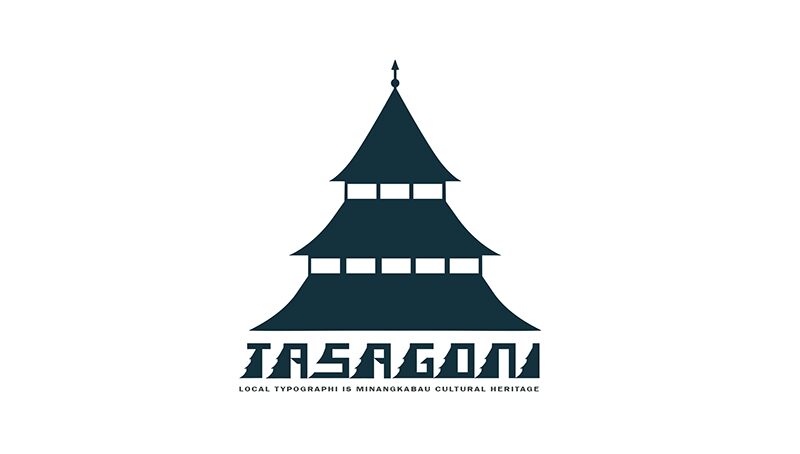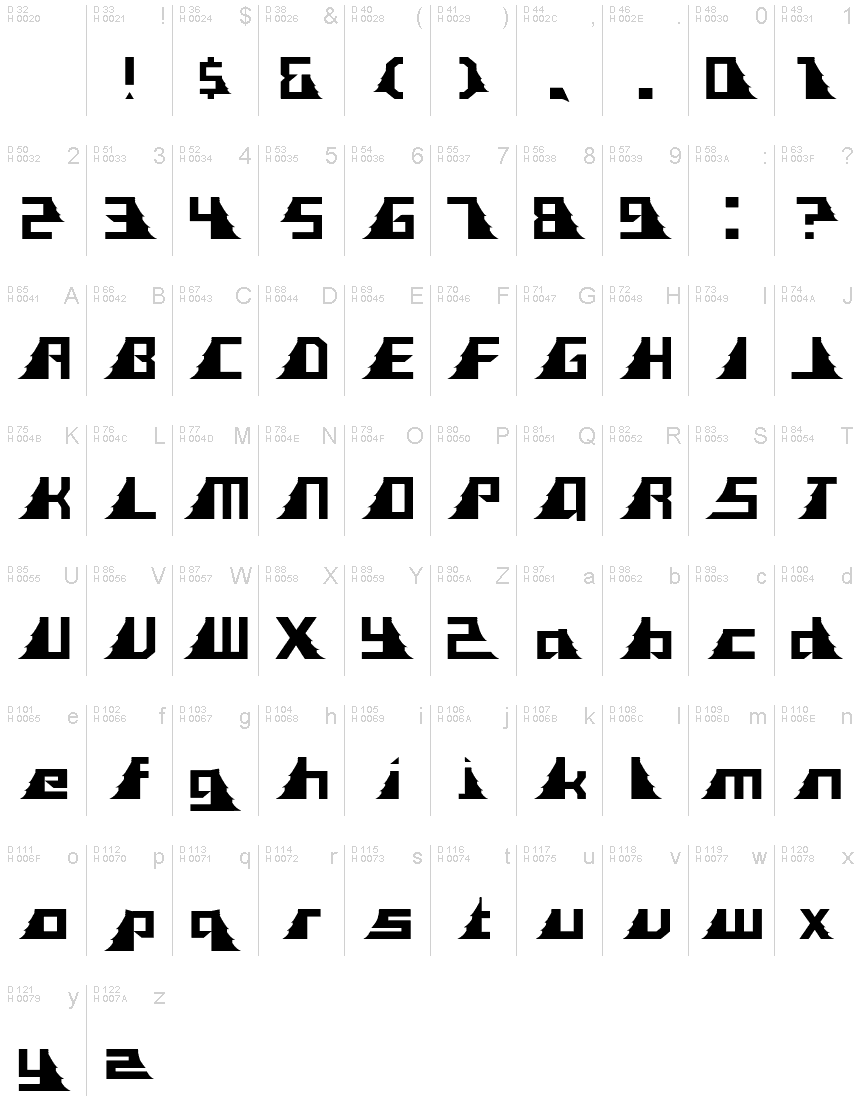
TASAGONI BOLD
Introducing Tasagoni Bold, a wide display font from the Tasagoni font family. Designed by Nirma Indah, this decorative, bold font is perfect for creating eye-catching titles and logos. Use it to add a touch of personality to your projects!